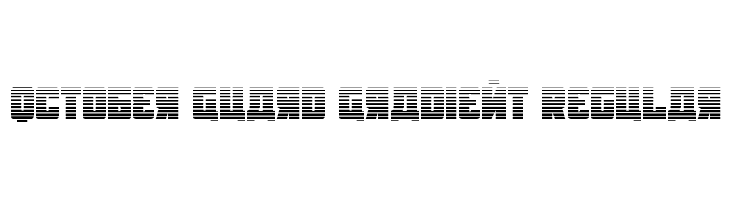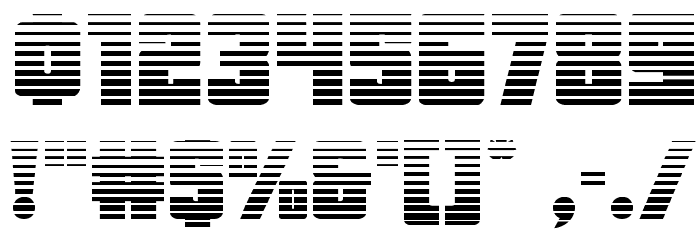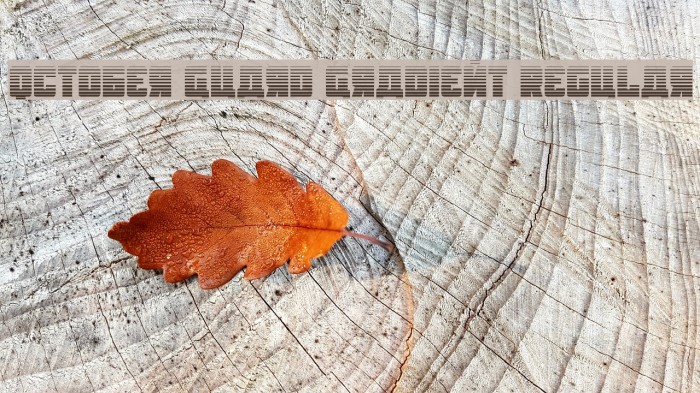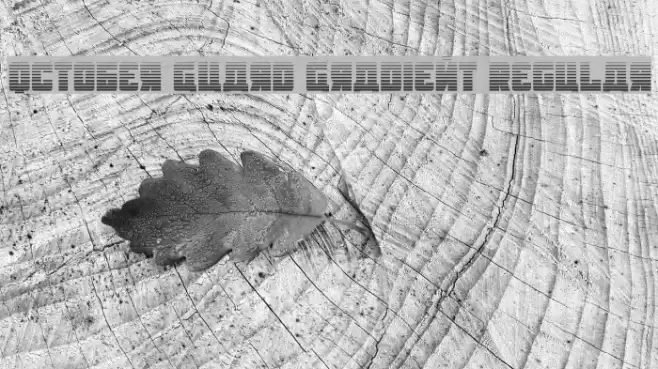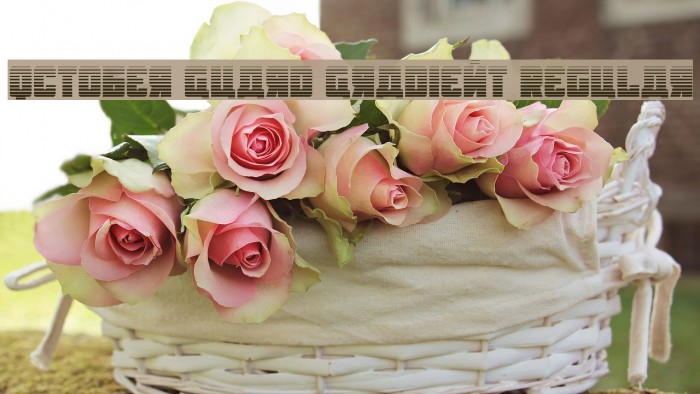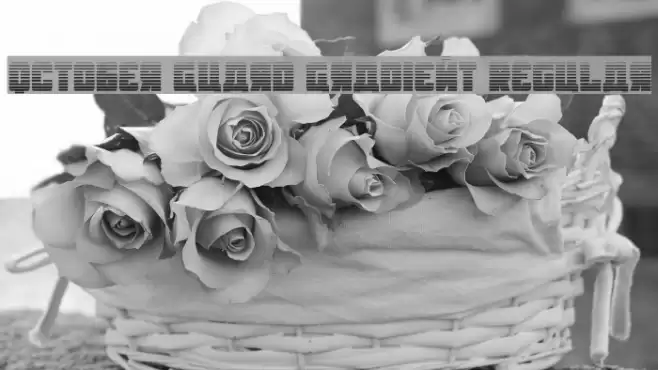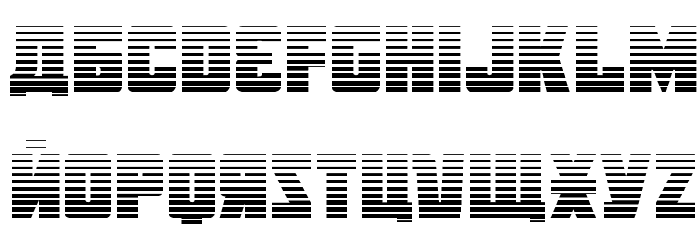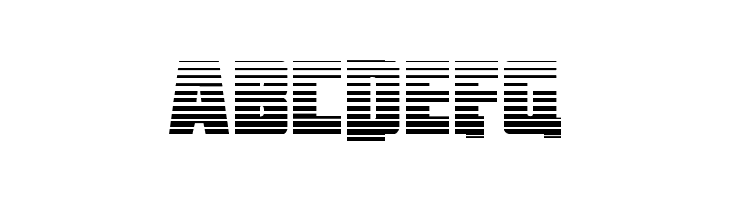
October Guard Gradient Regular Font
October Guard Gradient Regular Description
This font features a bold, geometric design with a distinct striped pattern running horizontally across each character. The uppercase letters are blocky and robust, giving a sense of strength and modernity. The lowercase letters maintain the same boldness, ensuring consistency throughout the typeface. Numbers and special characters are equally bold and follow the same striped pattern, making them stand out. The font's unique style is eye-catching and suitable for projects that require a modern and industrial feel.
| Proposed Projects | Ideal for branding, posters, and headlines that require a modern, industrial look. |